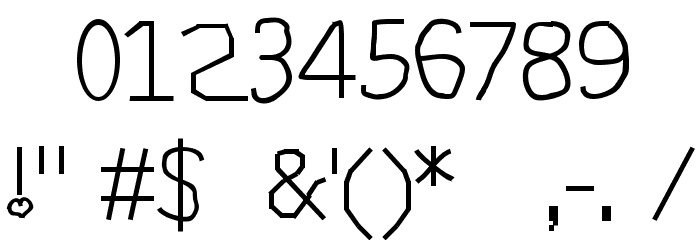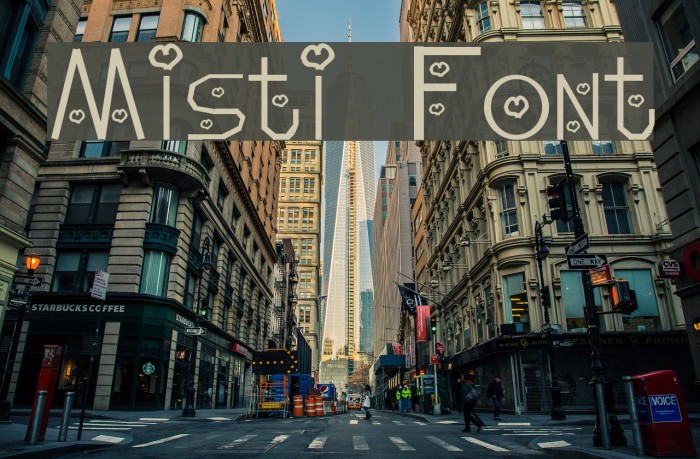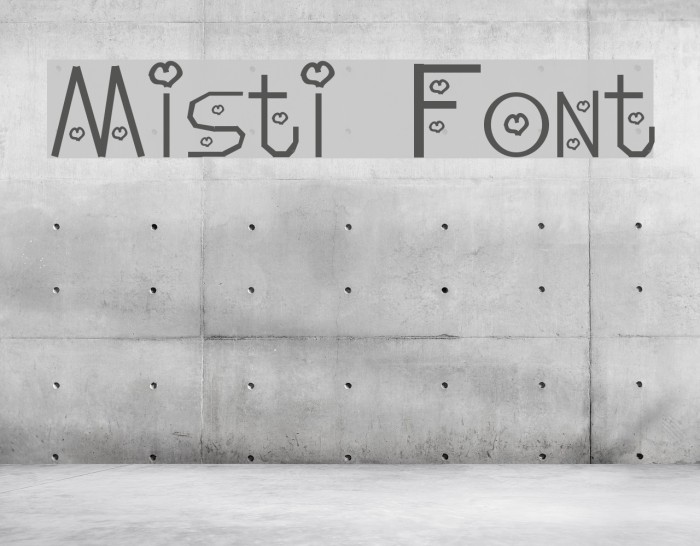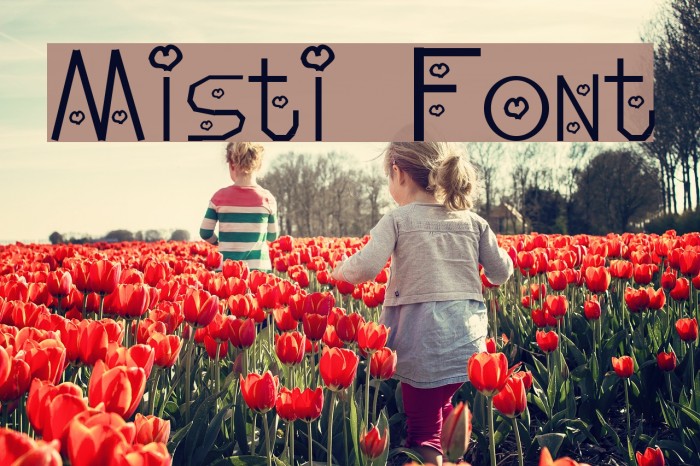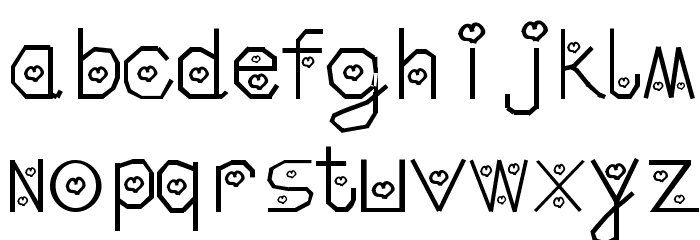
Misti Font
Misti Description
This playful and whimsical font features a unique design where each character is adorned with small heart shapes, adding a touch of charm and creativity. The letters are bold and geometric, with a consistent stroke width that gives them a sturdy appearance. The heart motifs are cleverly integrated into the structure of each letter, making the font ideal for projects that require a fun and lighthearted aesthetic. The numbers and special characters follow the same design principles, ensuring a cohesive look across all text elements. This font is perfect for creating eye-catching headlines, invitations, or any design that aims to convey warmth and affection.
A playful font with heart motifs integrated into bold, geometric characters from Uncategorized fonts.
- Proposed Projects: Ideal for greeting cards, children's books, playful branding, and Valentine's Day promotions.
- Overall Style: Whimsical
- Use Case: Headlines, Invitations, Greeting Cards